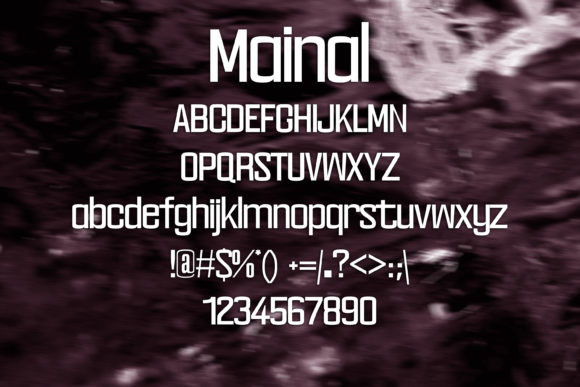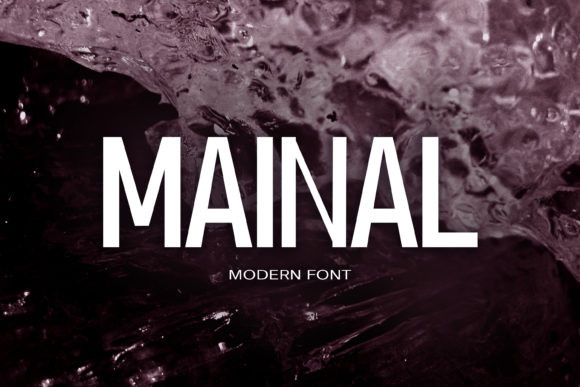
Mainal Font
Mainal is a sans serif font inspired by traditional sign painting with a modern twist. It’s super clean and minimal, perfect for any modern design.